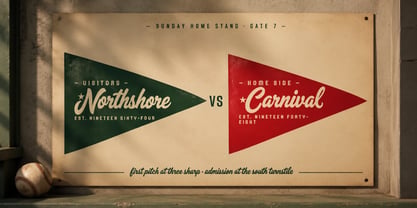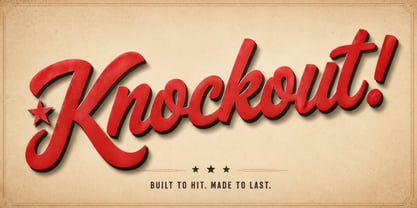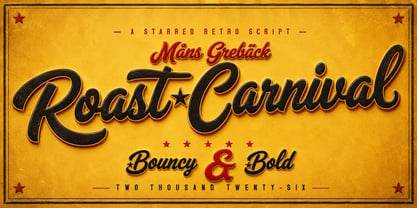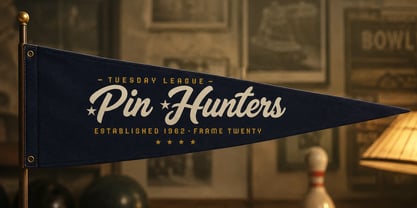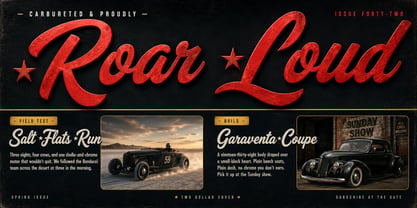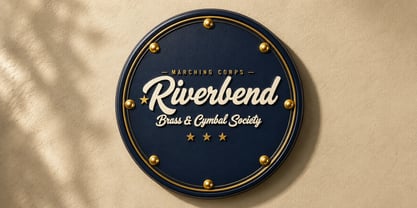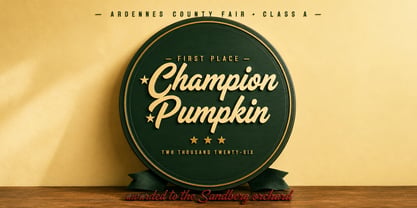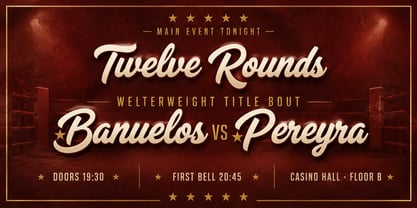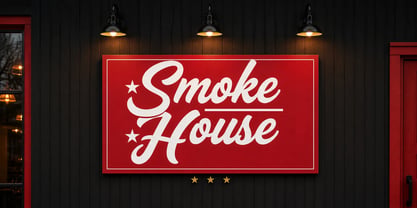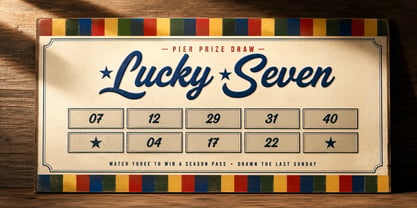
Roast Carnival
by Mans Greback
Roast Carnival is a bold, bouncy retro script that ships in two cuts — a Plain version with clean caps, and a Regular version where a star slides into the spaces between capital letters.
Chunky brush-edge strokes with confident swashes and a rolling baseline gives a single line of text a visual swing.
Picture it stacked across the front of a county-fair barker's broadside in cherry-red and cream, or wrapped around a drum-corps badge with a pair of brass studs — that's the energy this font is built for.
The font is built with advanced functionality and guaranteed top-notch quality, containing stylistic and contextual alternates, ligatures and more automatic and manual features; all to give you full control and customizability.
It has extensive lingual support, covering all Latin-based languages, from North Europa to South Africa, from America to South-East Asia. It contains all characters and symbols you'll ever need, including all punctuation and numbers.